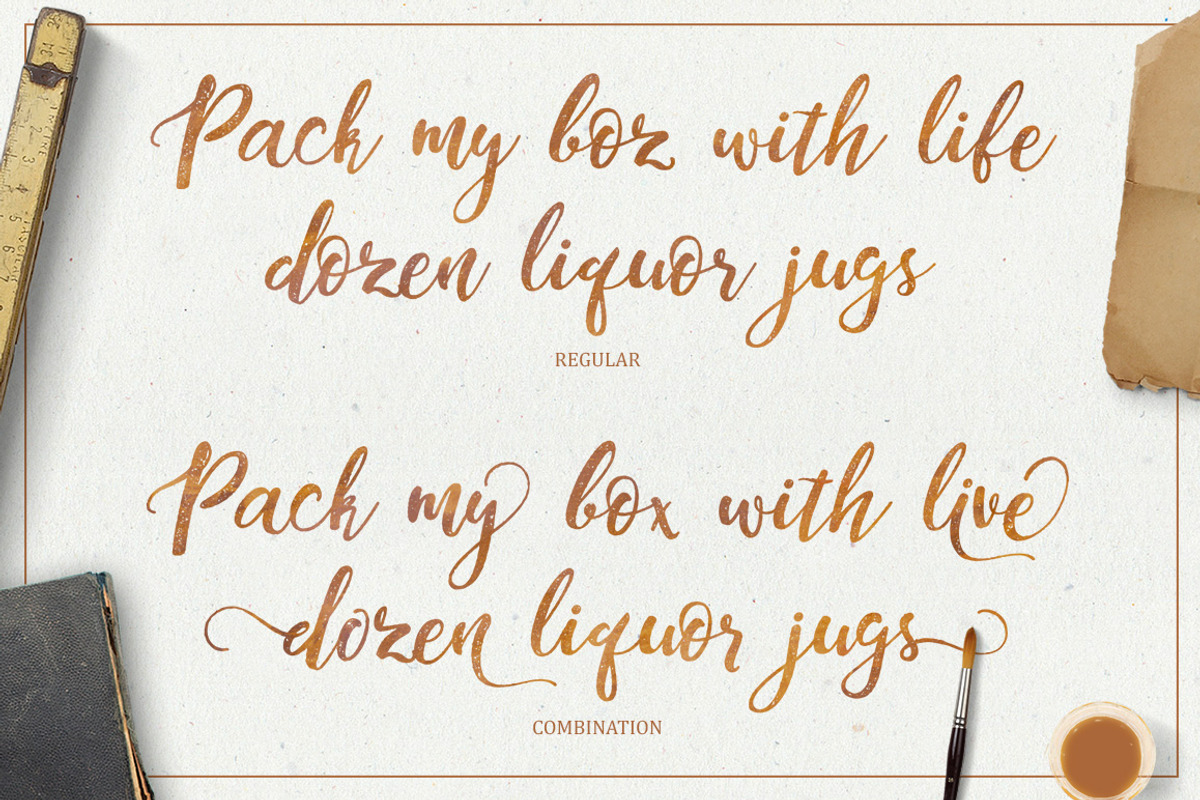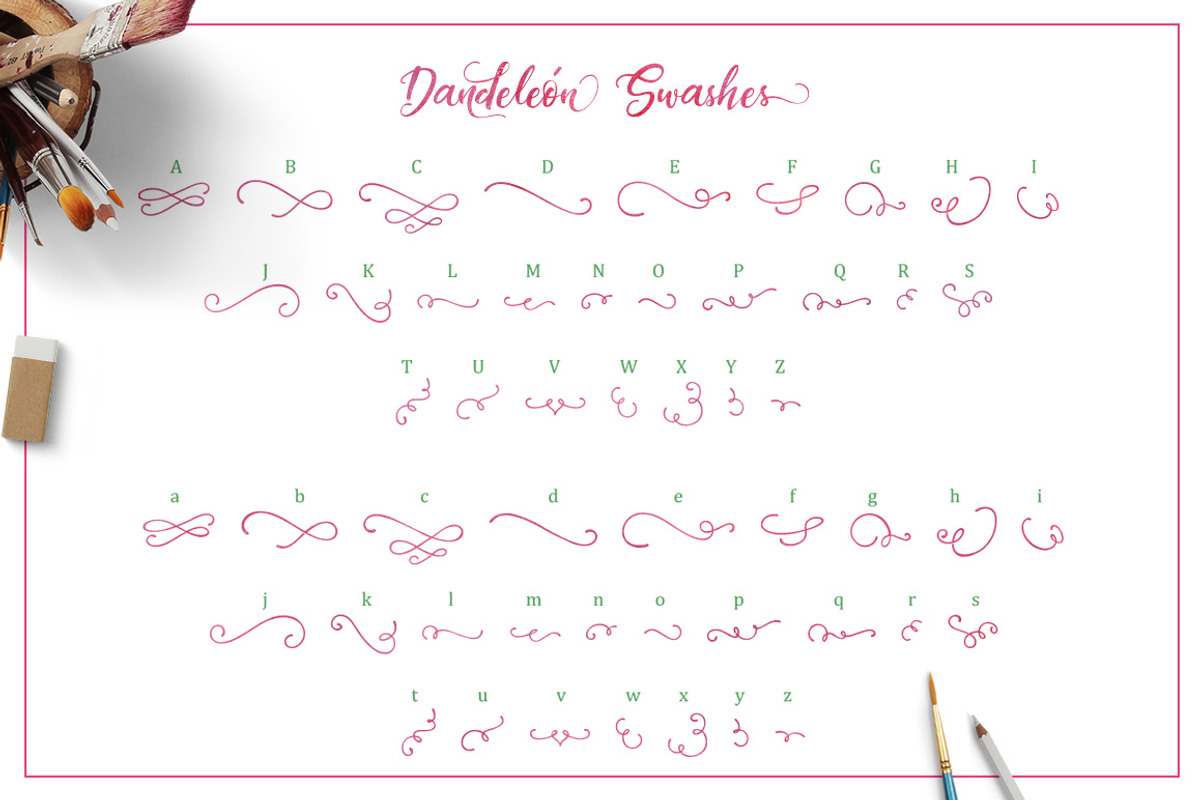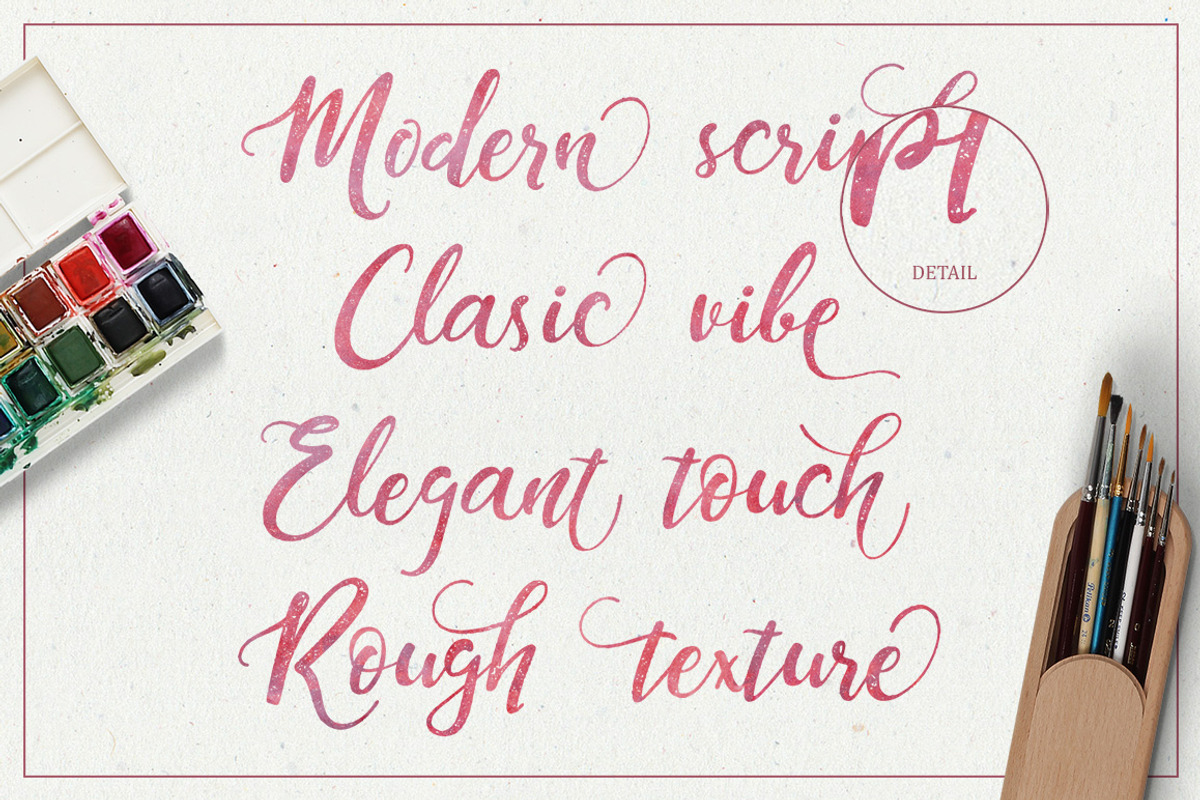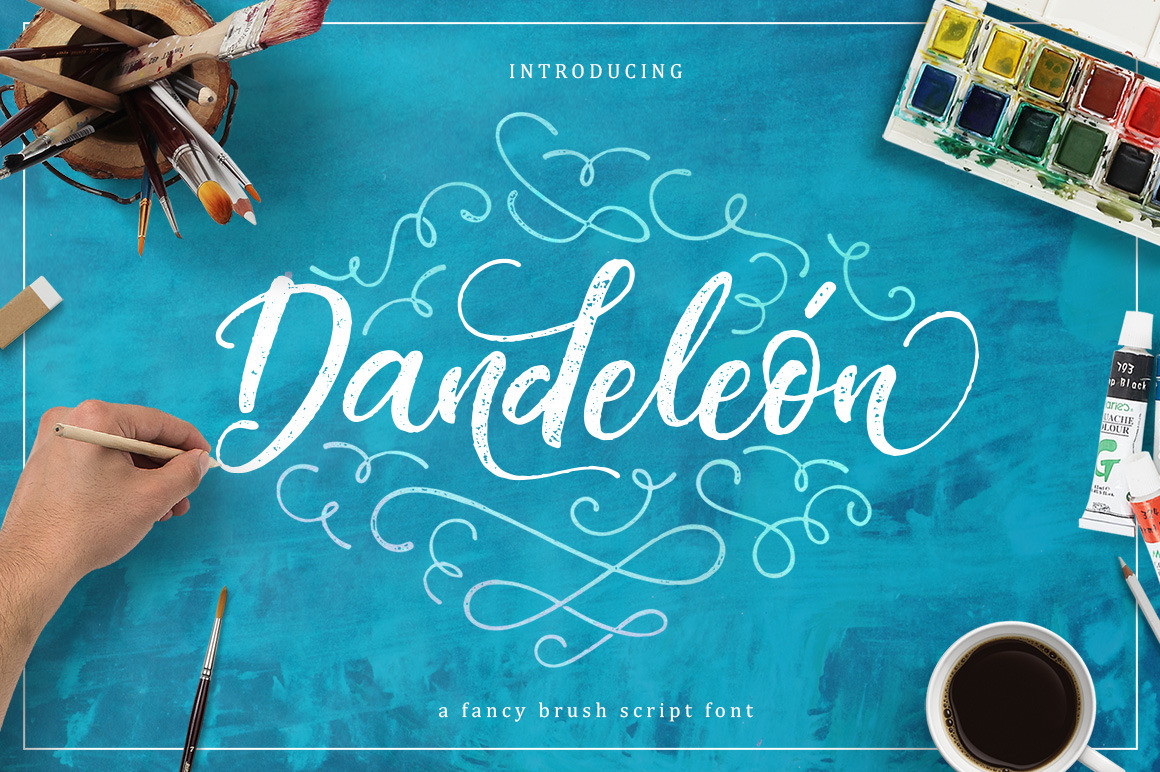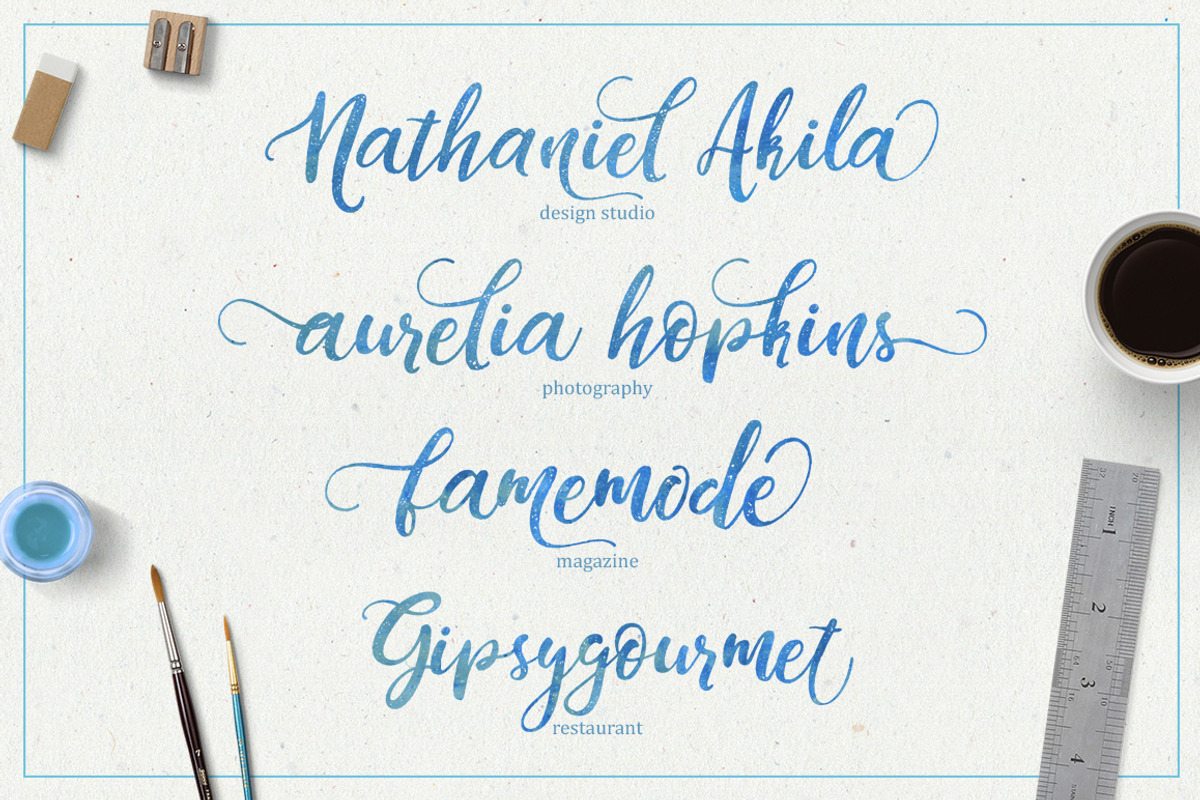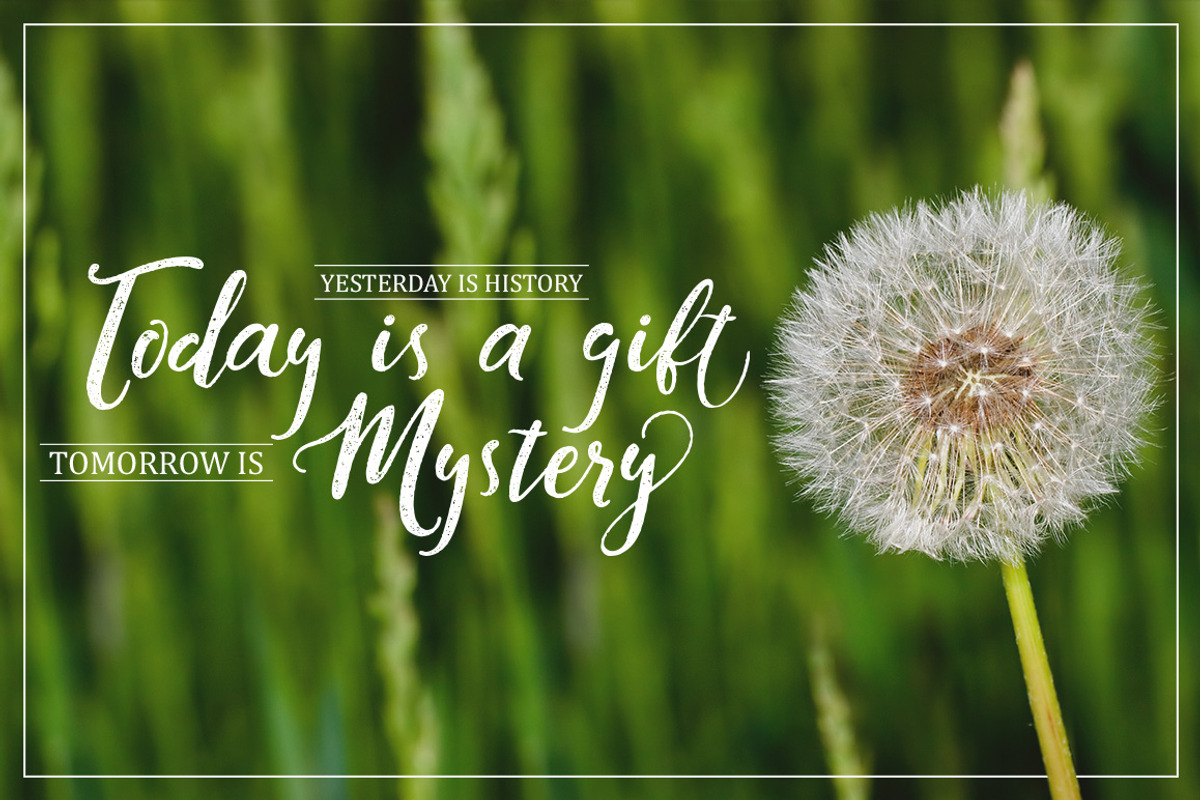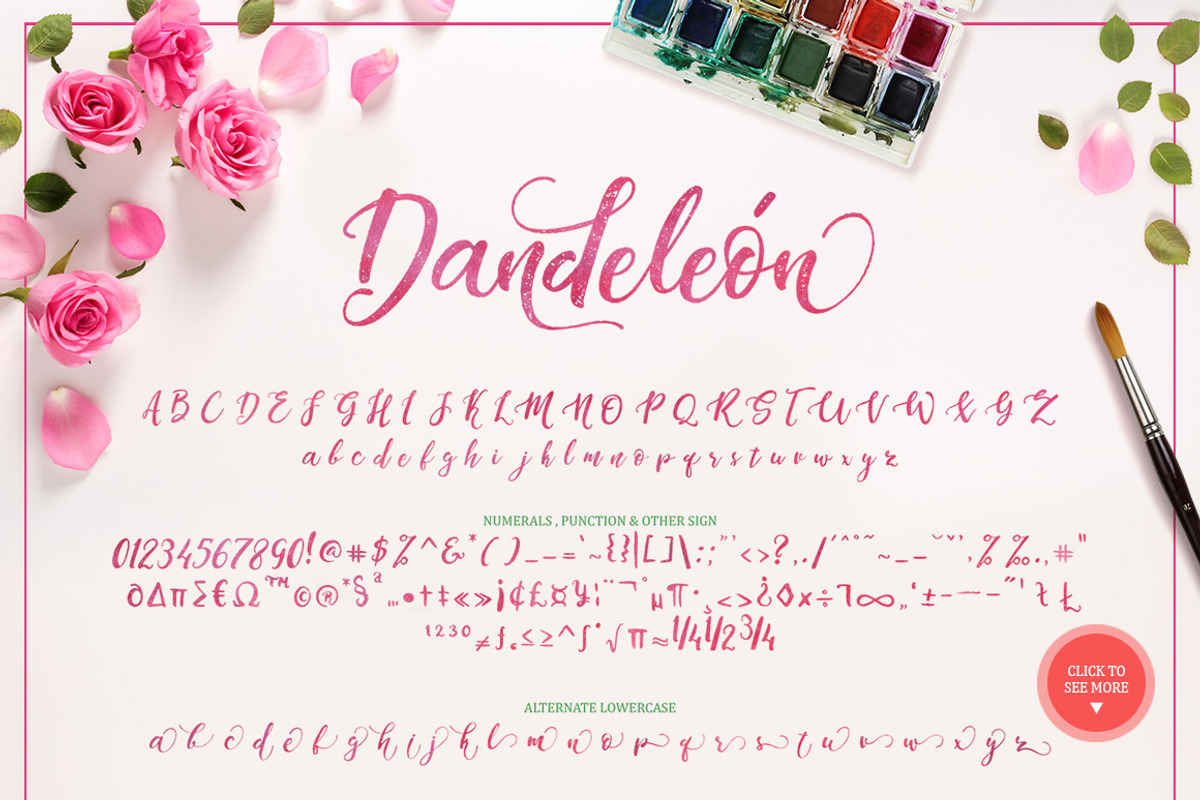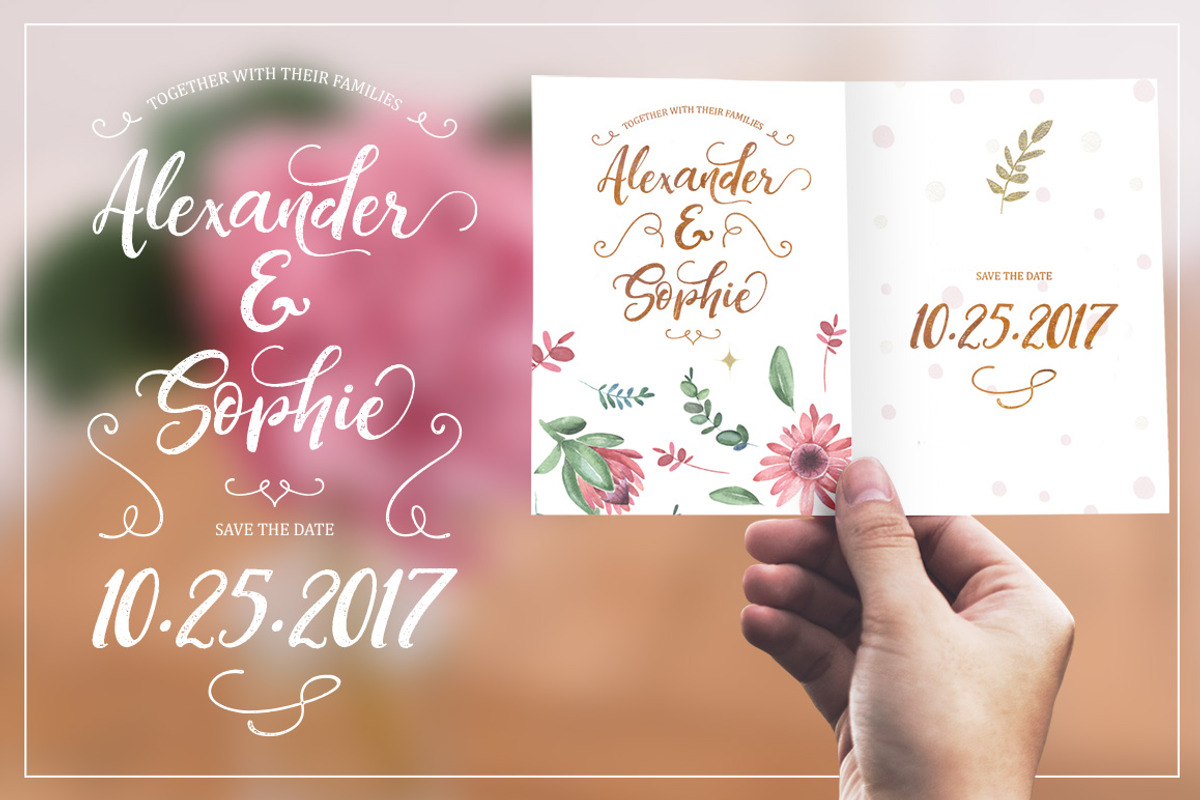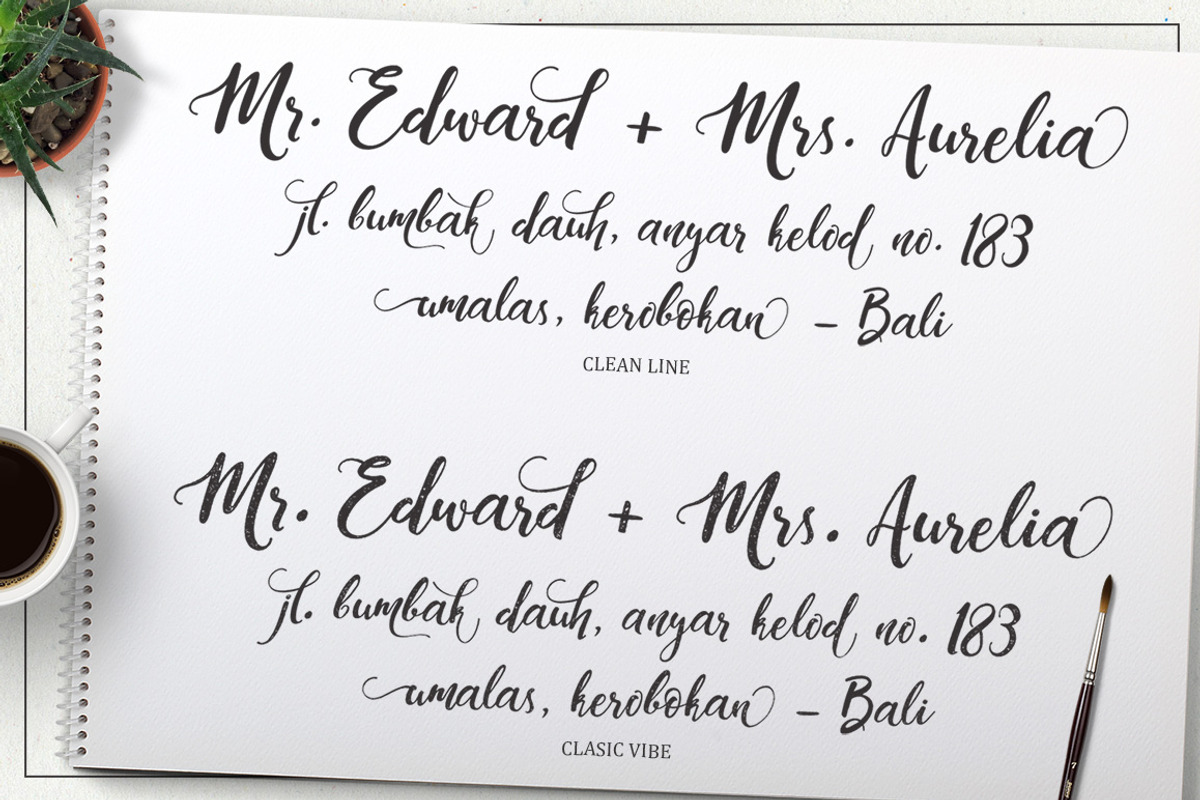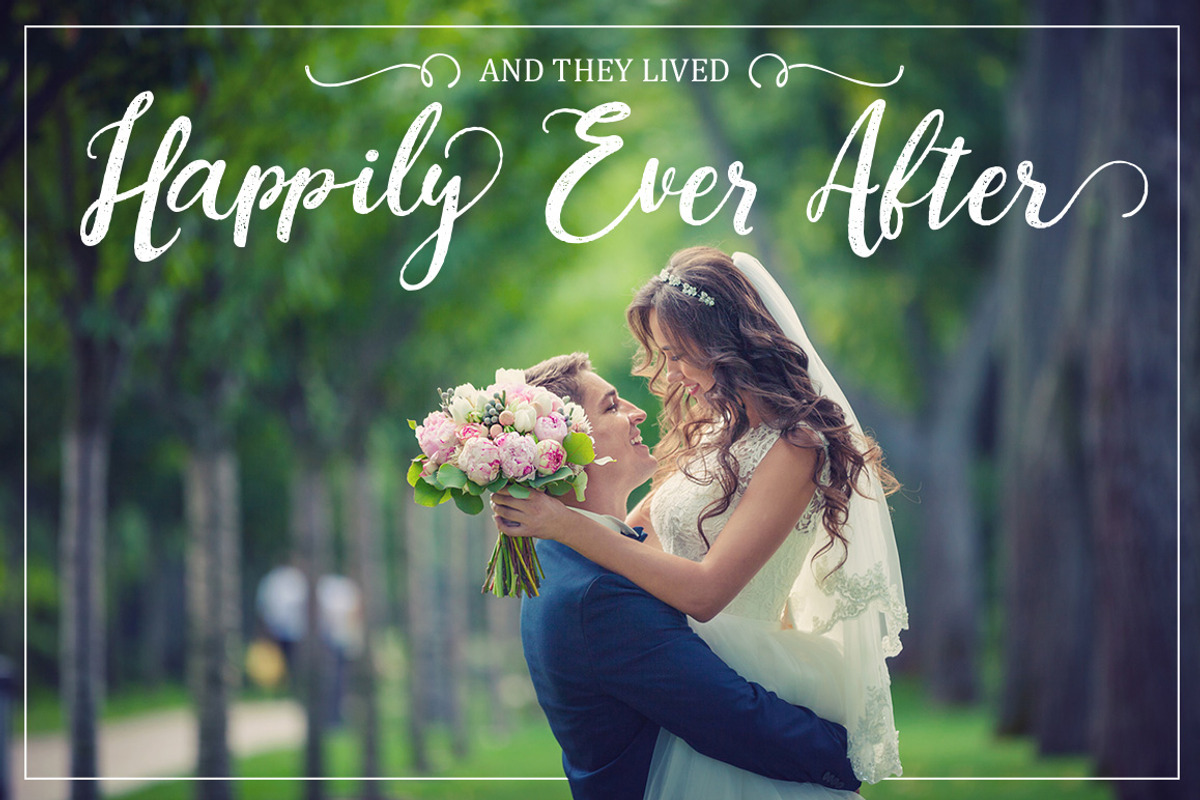
Dandeleón font + SWASHES
Say hi to beautiful hand made brush script Dandeleón font, a modern typeface with an authentic rough ink version and a clean pure! Simple as possible to use, just type your text and it comes up perfect.